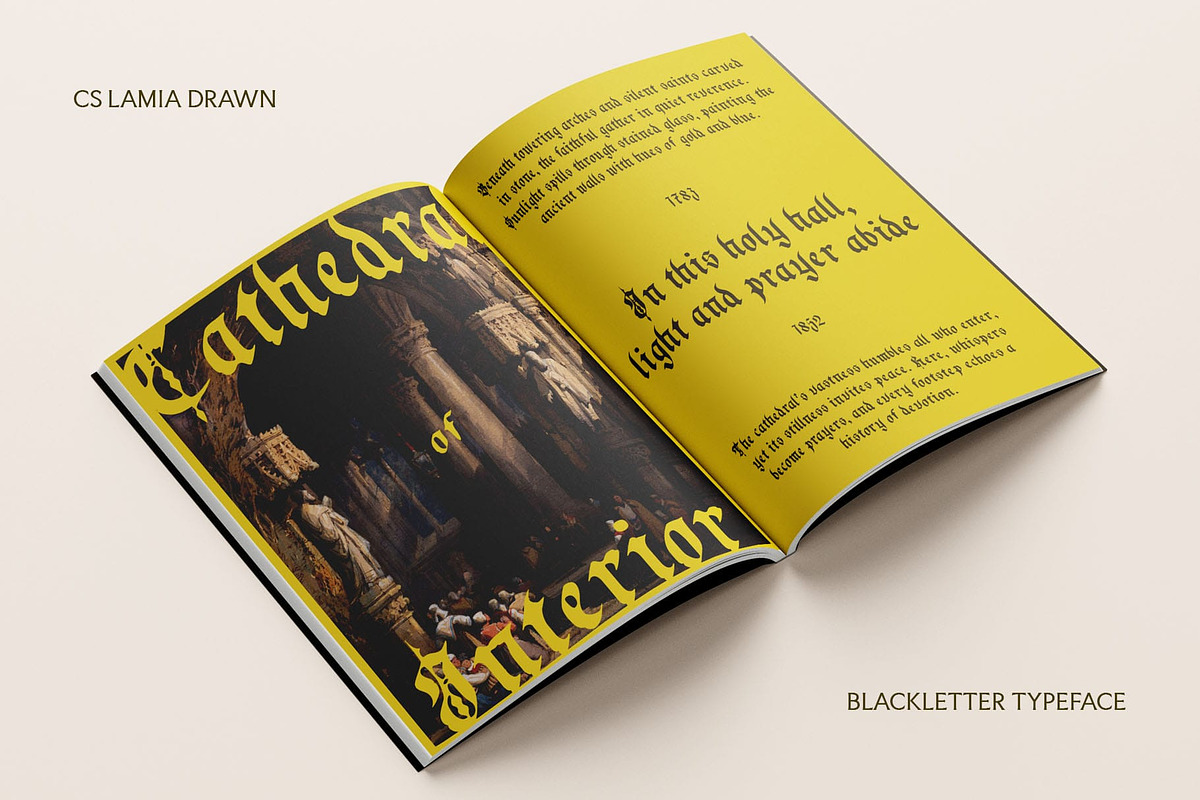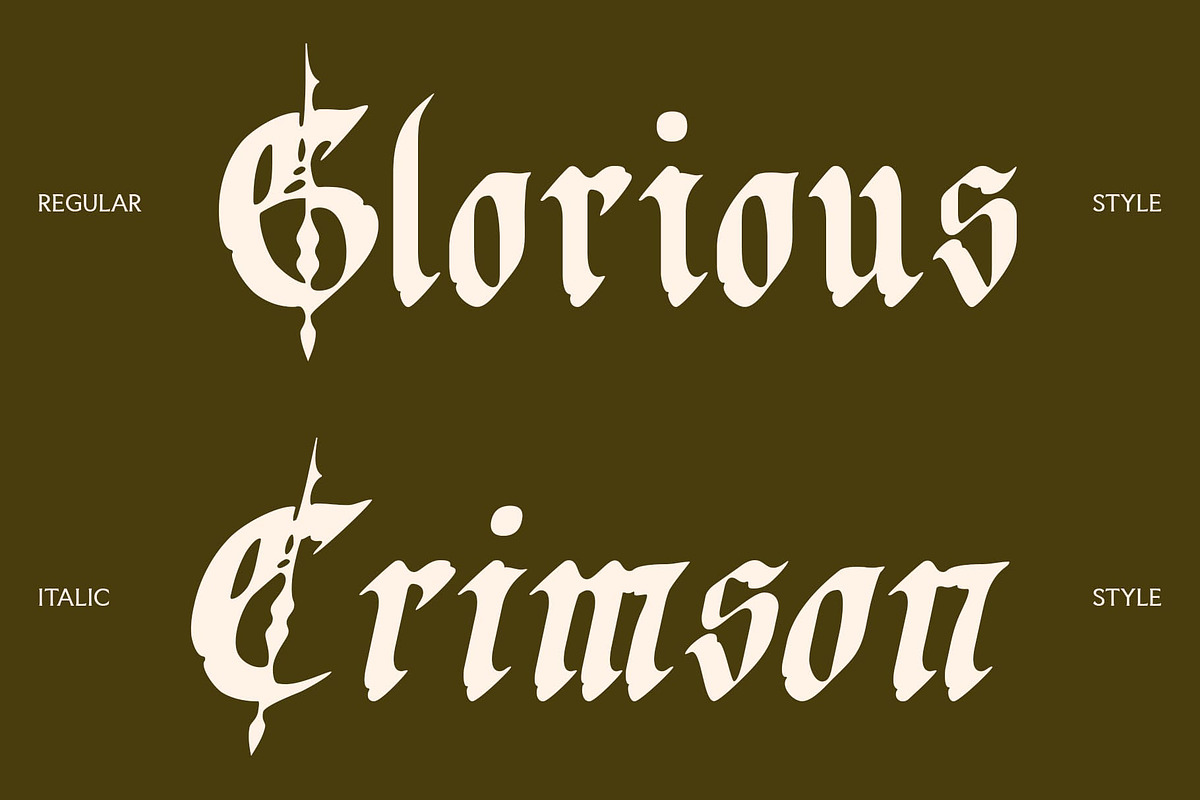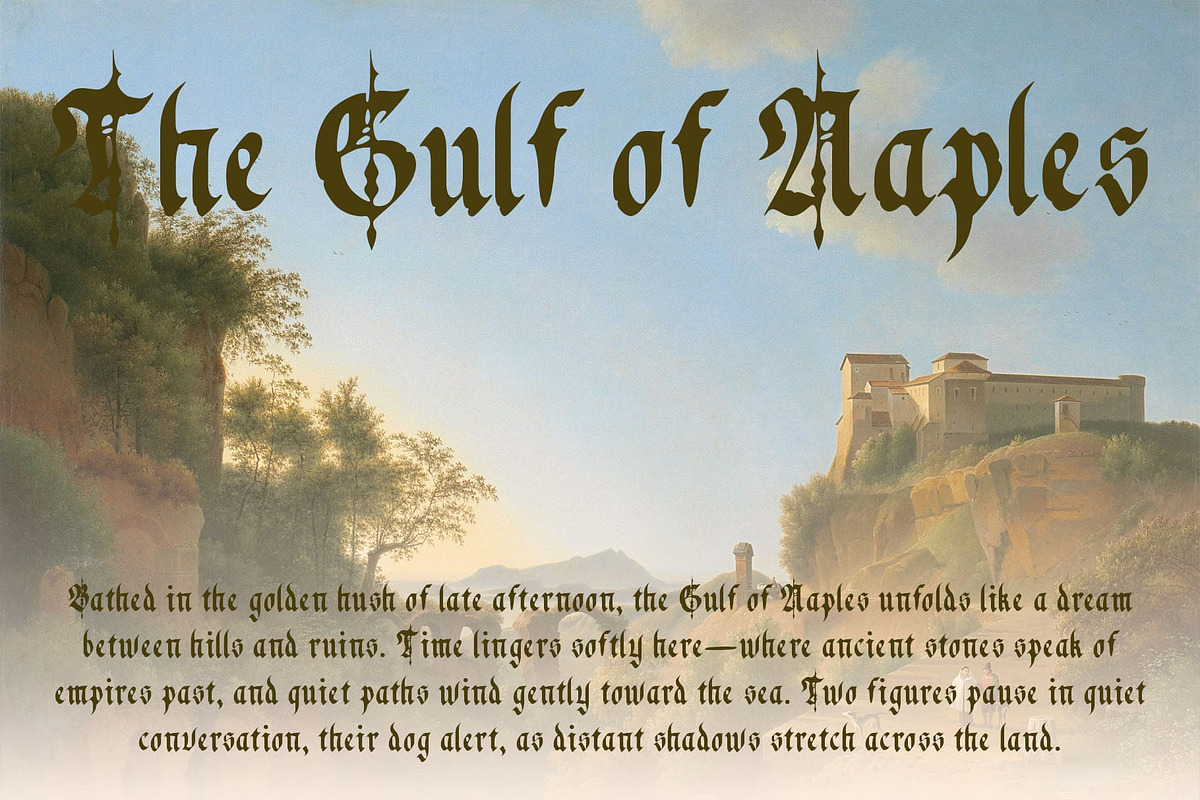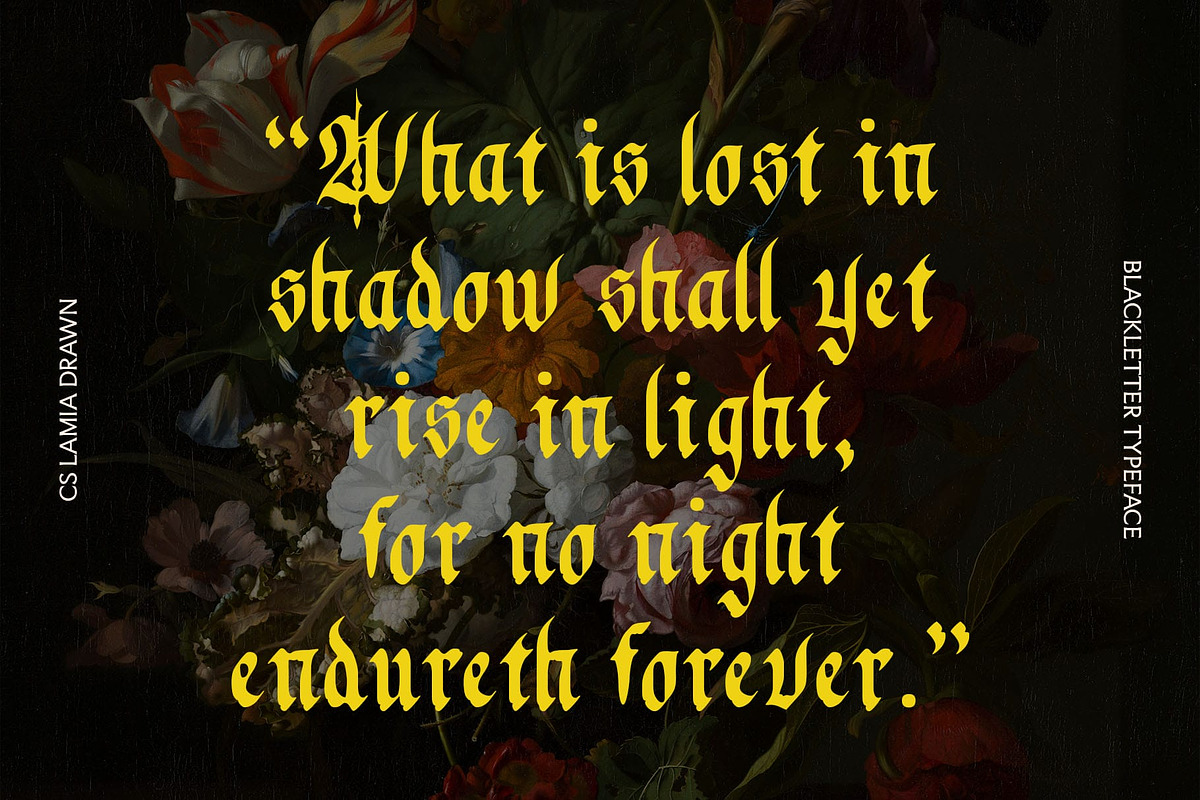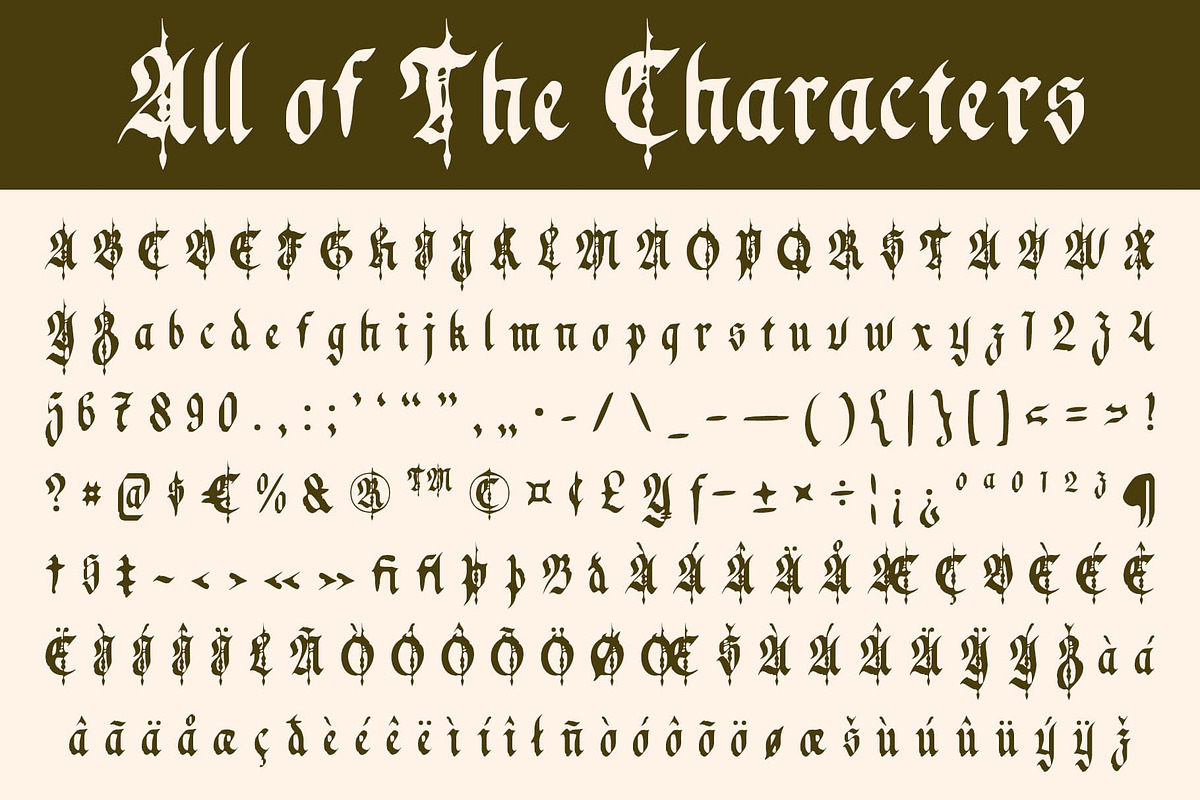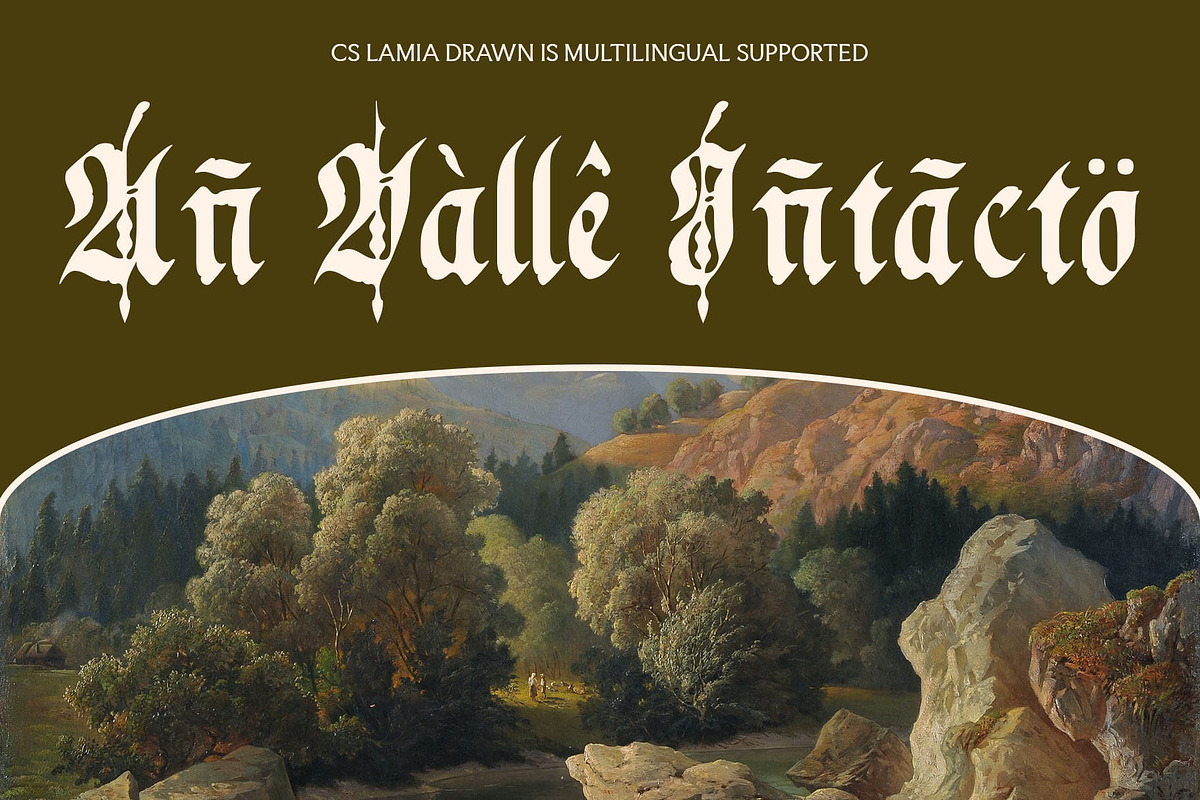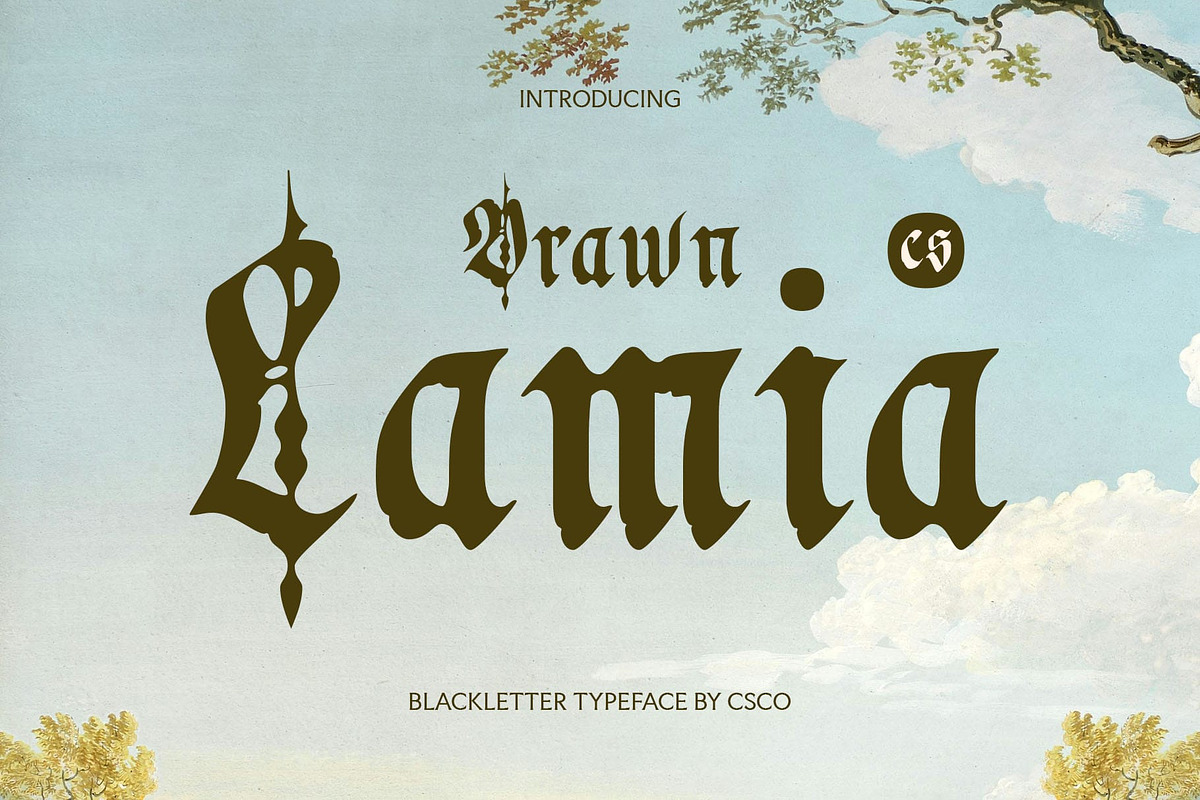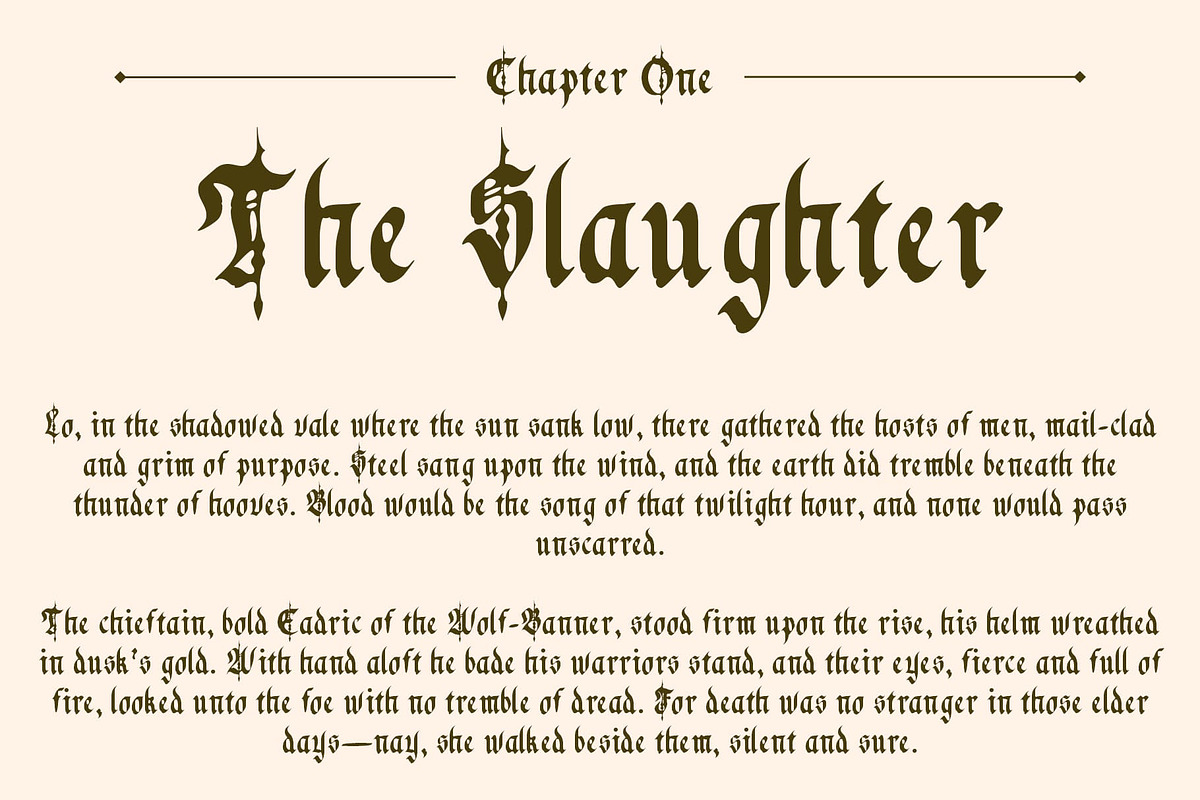
CS Lamia Drawn
CS Lamia Drawn – A Hand-Drawn Blackletter with Expressive Gothic Charm
Gothic Structure with Artistic Expression CS Lamia Drawn is a display font that merges the timeless structure of traditional blackletter with the raw personality of hand-drawn illustration. Its sharp, angular forms and dramatic contrast pay homage to classic Gothic scripts, evoking a sense of antique elegance, mysticism, and historical depth.
Handcrafted, Free-Spirited Energy Unlike rigid and formal blackletter styles, this mystical font introduces a looser, more expressive rhythm through its drawn effect. This handcrafted detail softens the strictness of its structure, giving the typeface a more personal, organic, and emotional feel—as though written with a brush or ink pen in the margins of an ancient manuscript.
A Unique Blend of Old World and Artistic Soul The result is a visually rich and unconventional font that retains the ornate authority of blackletter while exuding a creative, almost rebellious spirit. This rare combination brings a sense of artistic imperfection and warmth to what is typically a rigid and formal genre.
Perfect For Evocative and Creative Design Ideal for music posters, alternative branding, editorial covers, fantasy themes, or historical-inspired graphics, this intense and arcane font is perfect for any project seeking to balance antique charm with expressive energy. It’s a font that feels both ancient and alive, suitable for designs that aim to tell a story through texture and tone.